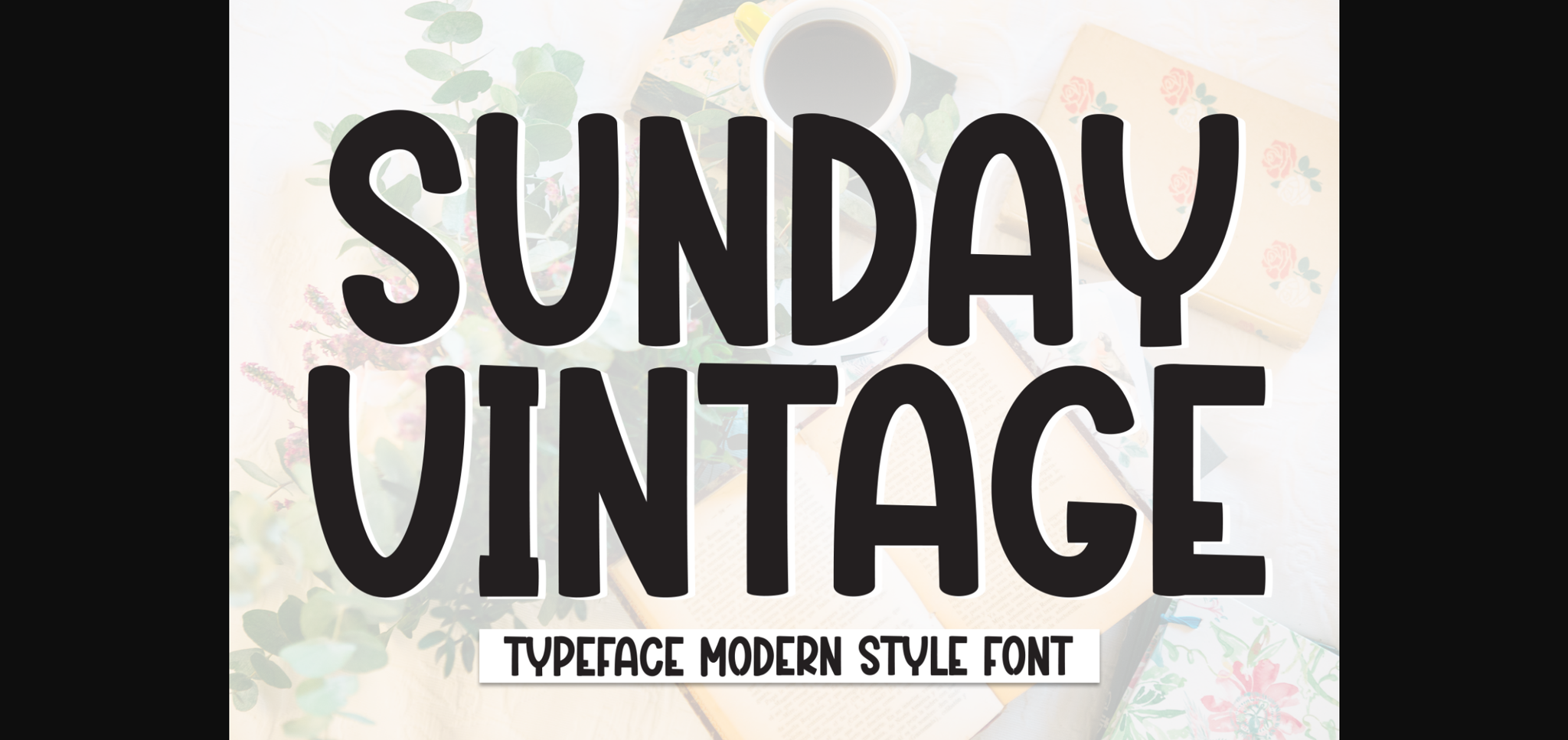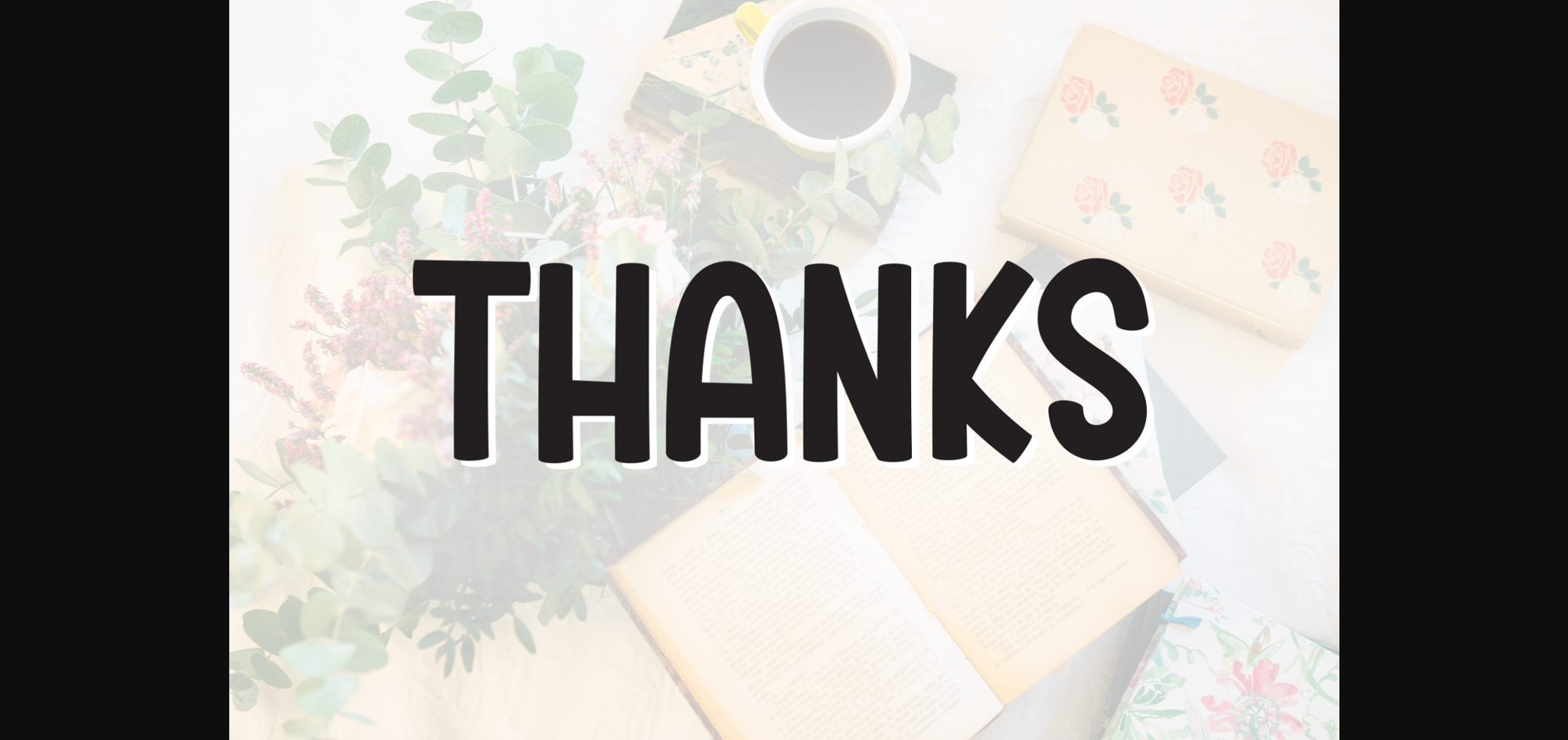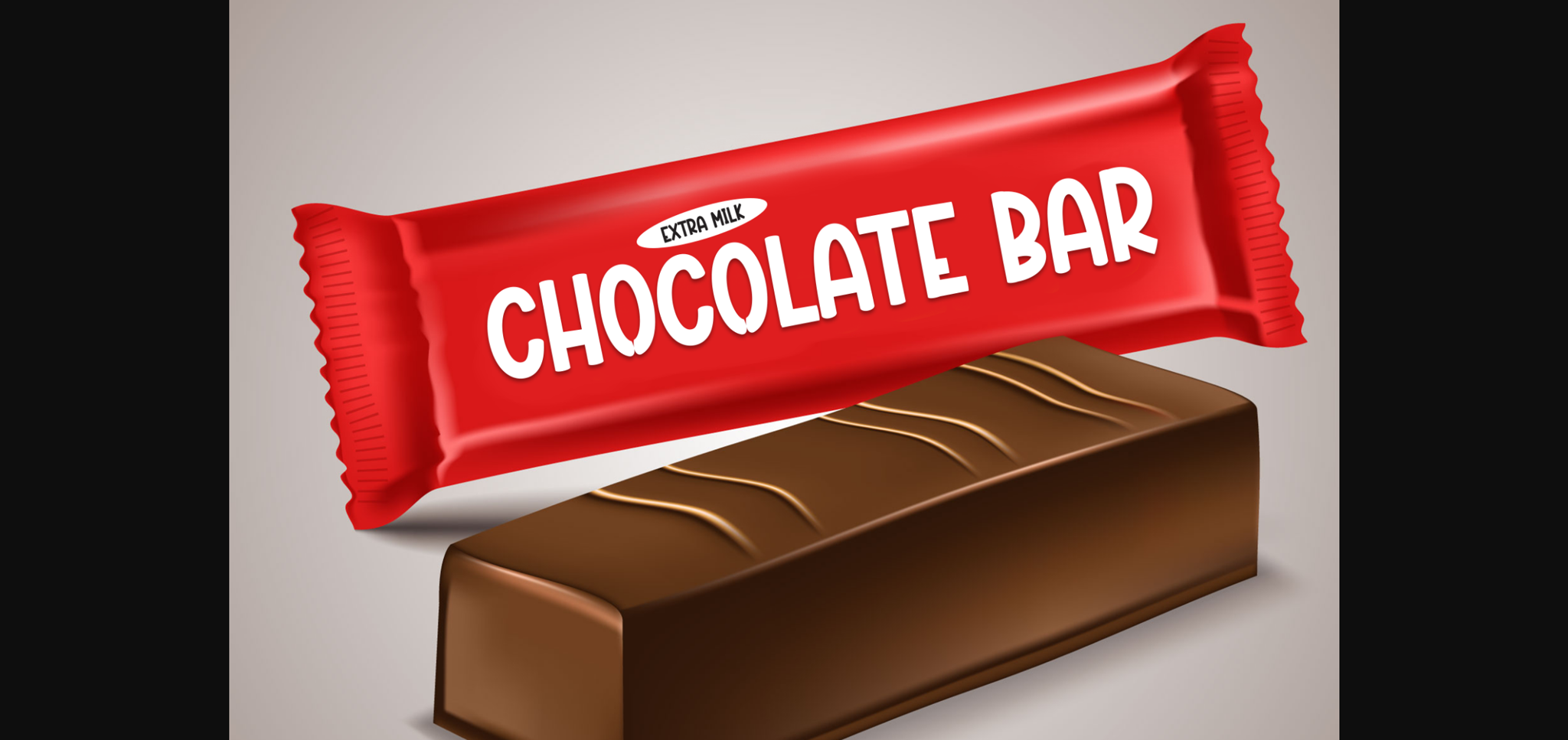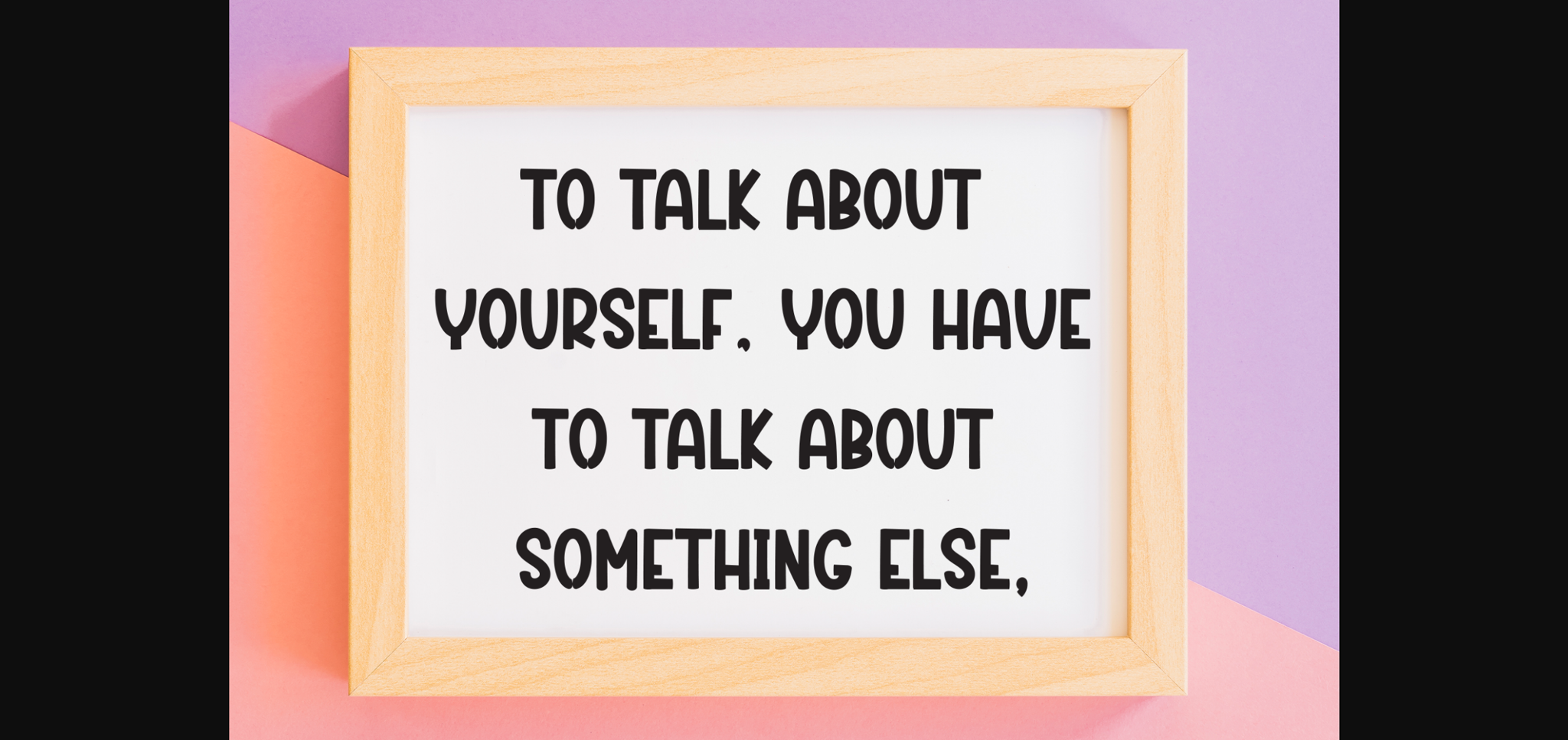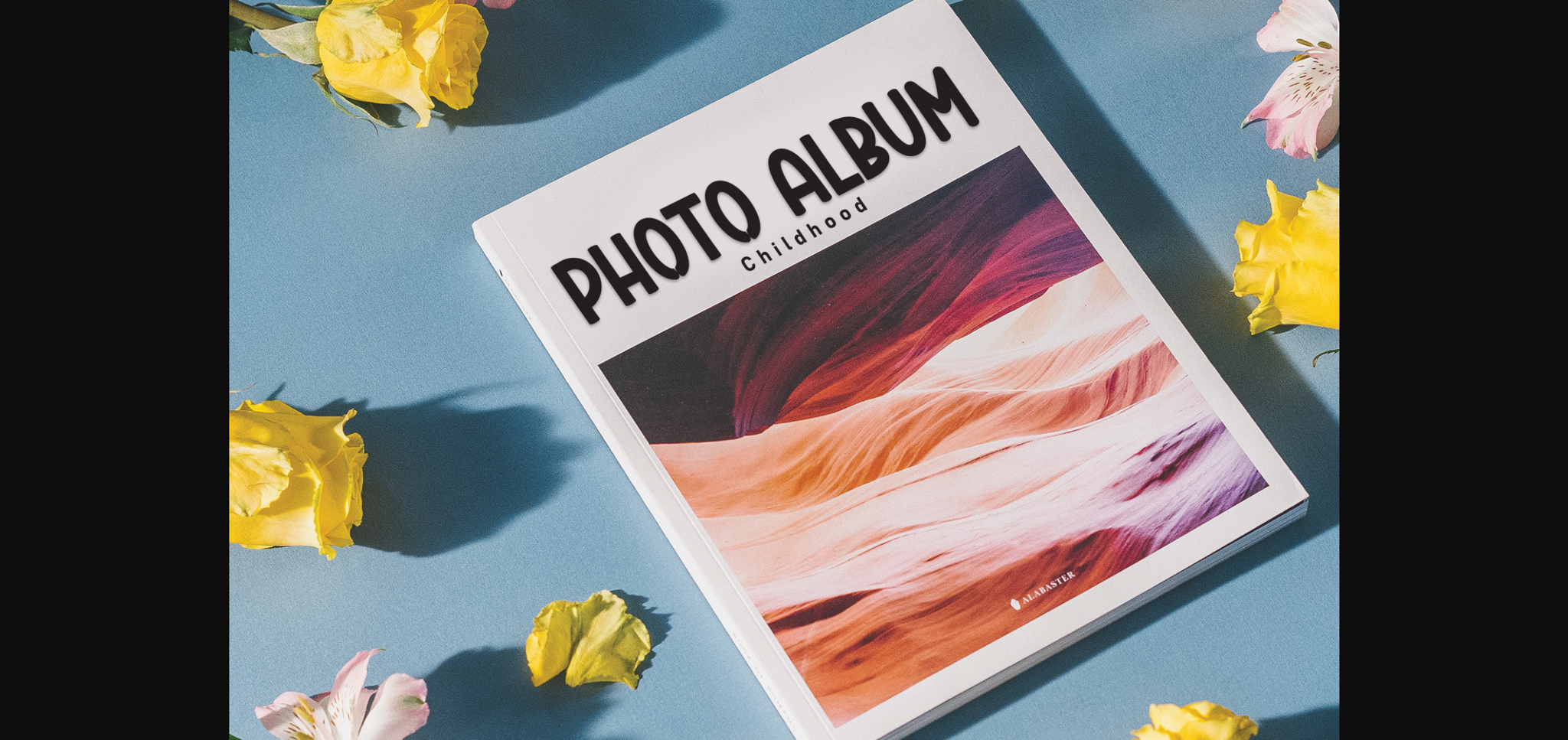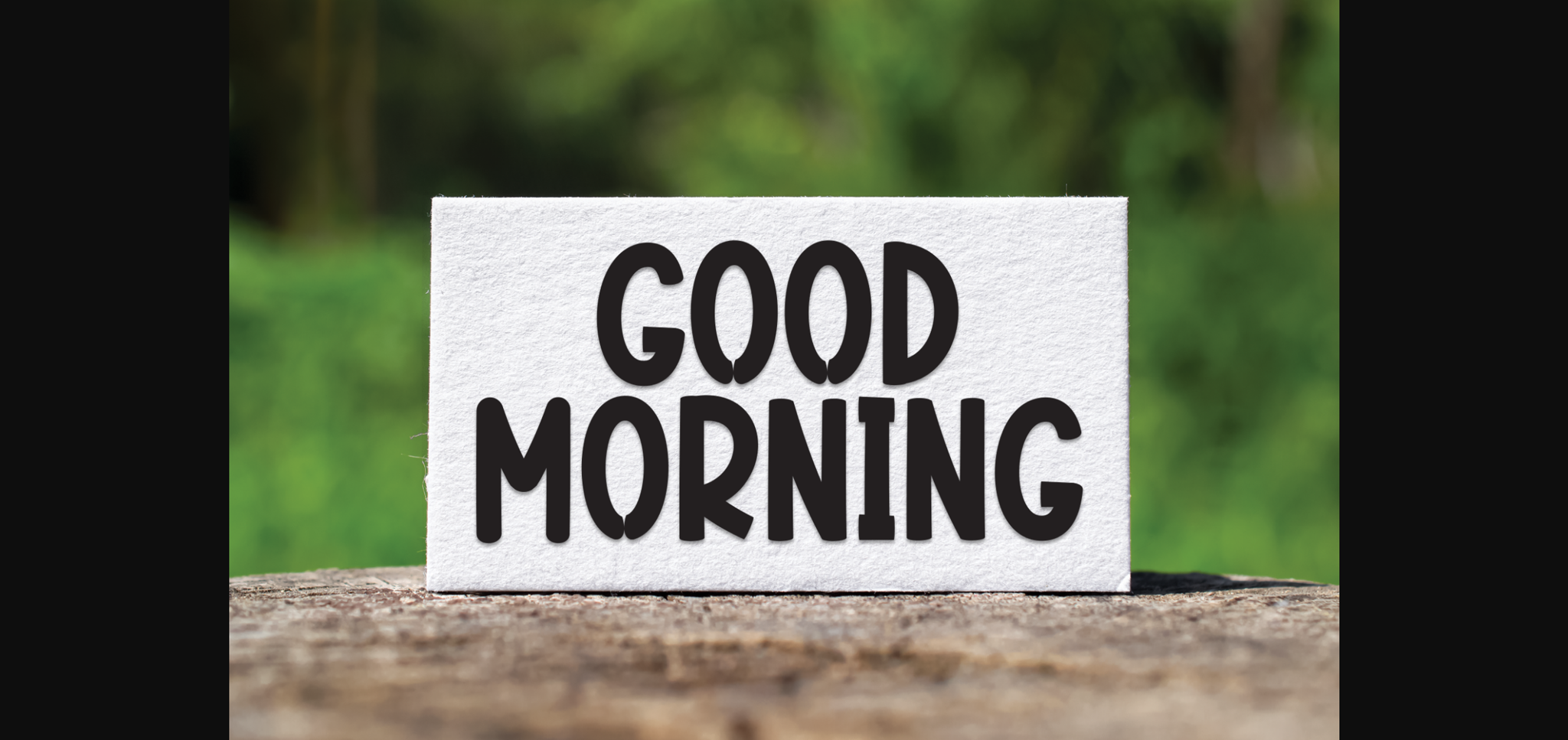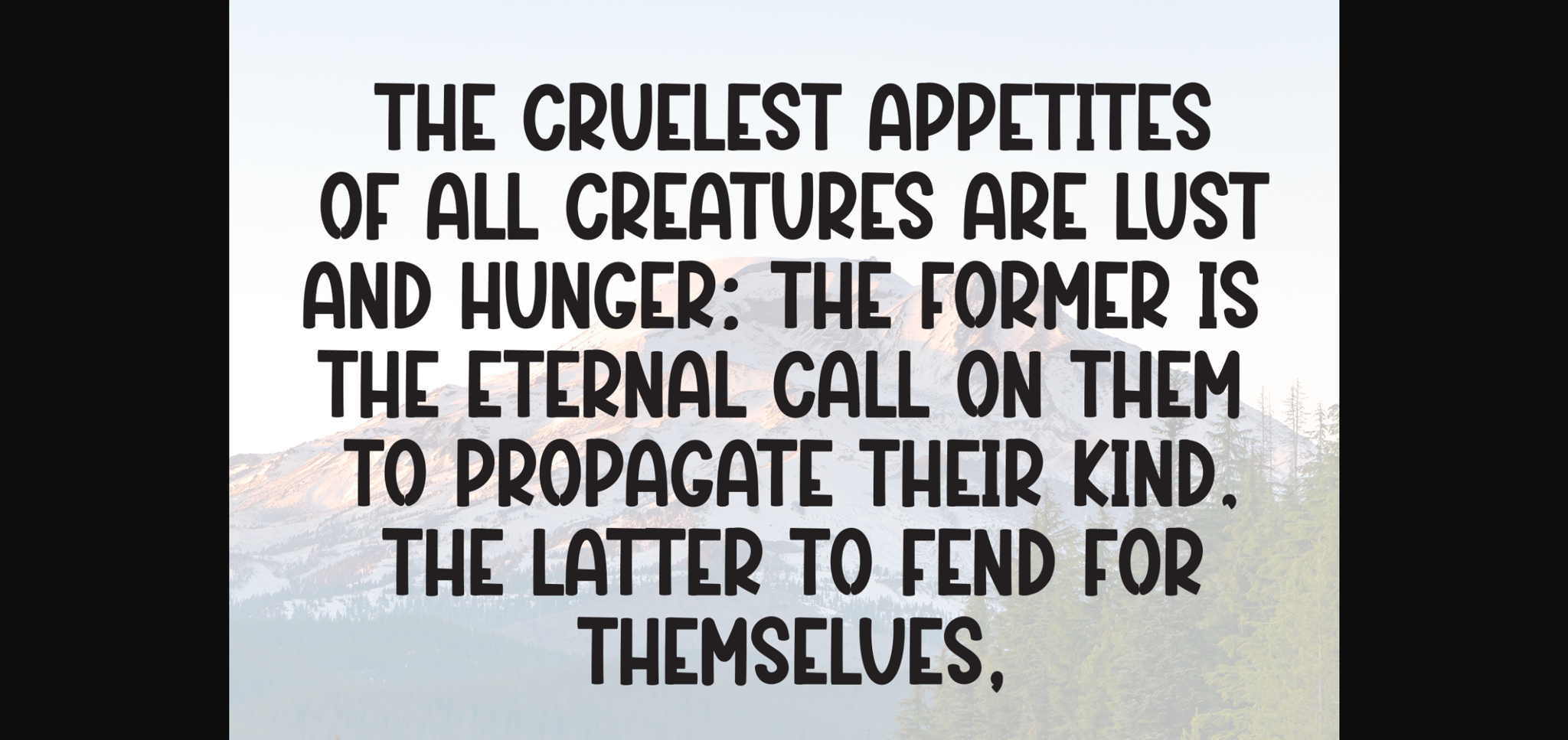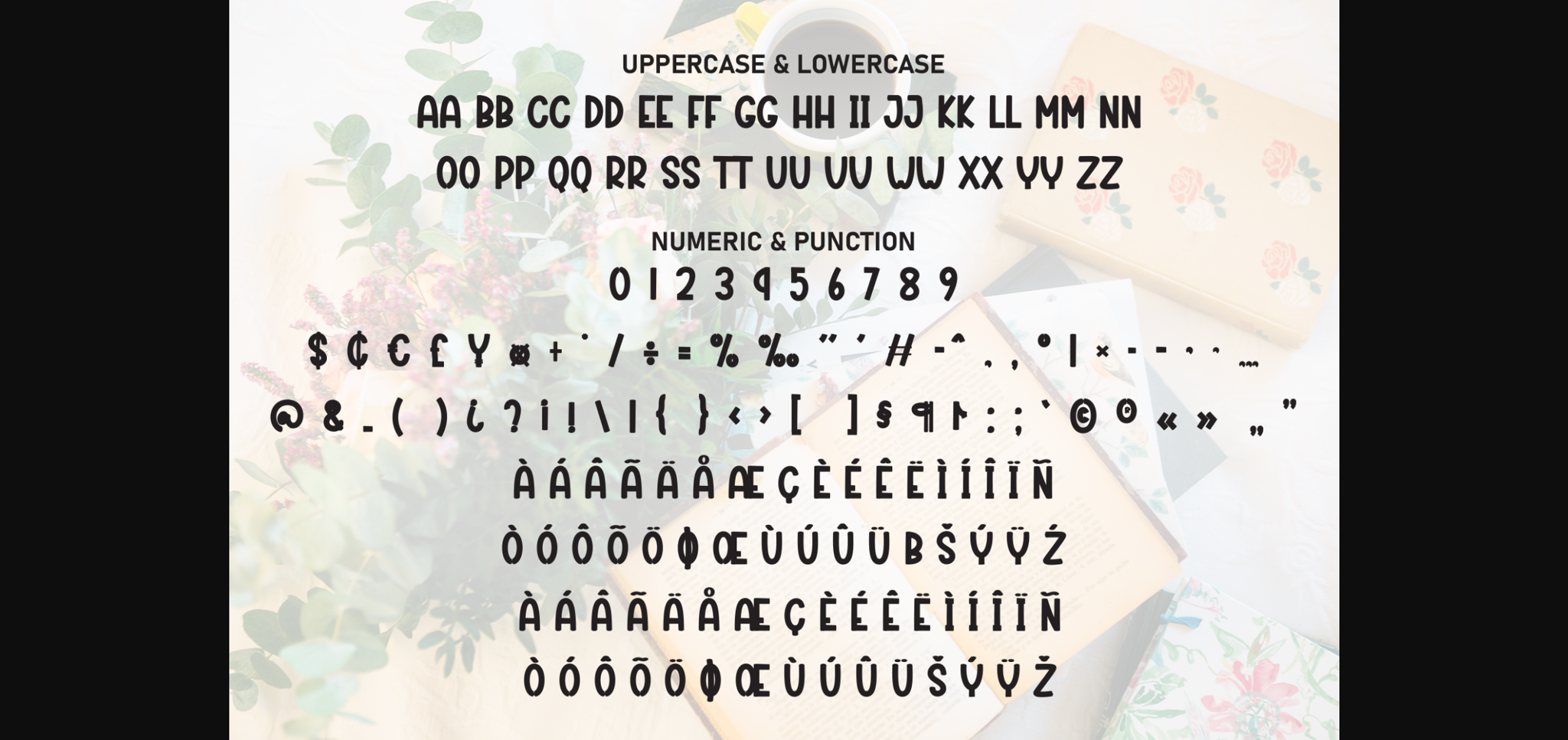
Sunday Vintage Font
About Sunday Vintage Font
Sunday Vintage is a cool sans-serif font that marries grace with expressiveness. Each meticulously crafted character exudes an artful elegance, capturing the essence of traditional calligraphy. Ideal for projects seeking a timeless and sophisticated touch, Sunday Vintage adds a refined, handwritten flourish to your creative endeavors.